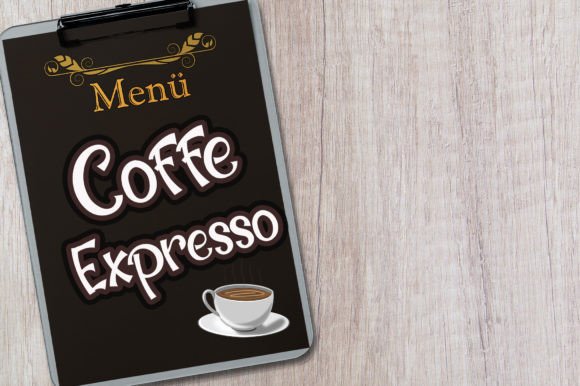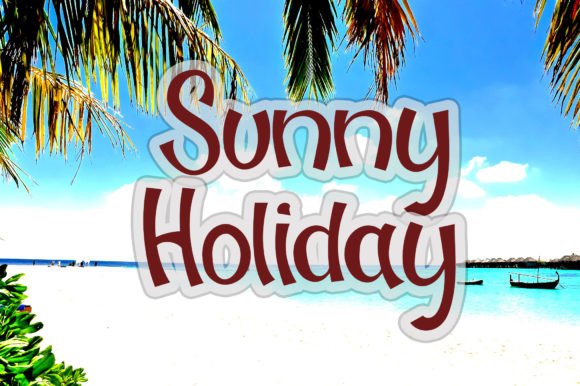
Create Line Font: Elevate Your Designs with Elegance and Precision
In the world of typography, a well-crafted font can make all the difference in elevating your designs to new heights. Introducing Create Line, a modern display typeface specifically designed for high-resolution displays and print media. With its sleek appearance and finely balanced proportions, Create Line is the perfect choice for headline text, corporate branding, and other designs where a touch of refinement is required.
Introducing Create Line Font
Create Line is a stunning display typeface that embodies the perfect blend of elegance and precision. Its modern design makes it an ideal choice for a wide range of applications, from luxury branding and advertising to digital media and print publications. The font’s sleek lines, subtle curves, and balanced proportions create a sophisticated look that is sure to captivate audiences.
Key Features of Create Line Font
• High-Resolution Displays: Create Line is optimized for high-resolution displays, ensuring crystal-clear rendering and precision.
• Print Media: The font’s finely balanced proportions make it perfect for print media, including brochures, posters, and business cards.
• Elegant Appearance: Create Line boasts an elegant appearance, making it suitable for luxury branding, high-end advertising, and corporate designs.
• Versatility: The font’s versatility allows it to be used in a wide range of applications, from digital media to print publications.
Create Line offers numerous benefits for designers and crafters, including:
• Enhanced Visual Identity: Create Line helps establish a strong visual identity for brands, making it perfect for corporate branding and advertising.
• Improved Readability: The font’s clear and balanced design ensures excellent readability, even at small sizes.
• Increased Creativity: Create Line’s unique and elegant appearance inspires creativity, allowing designers to push the boundaries of their designs.
• Time-Saving: The font’s versatility and wide range of applications save designers time and effort, as they can use it across multiple projects.
Tips for Using Create Line Font
To get the most out of Create Line, consider the following tips:
• Pair with Neutral Fonts: Pair Create Line with neutral fonts to create visual contrast and emphasize key messages.
• Experiment with Colors: Take advantage of Create Line’s versatility by experimenting with different colors and textures.
• Use for Headlines: Use Create Line for headlines and titles to create a lasting impression and draw attention.
Font Name Create Line Font
Author Ailil Design Studio
Create Line is a game-changing font that offers designers and crafters a unique opportunity to elevate their designs with elegance and precision. Its modern design, finely balanced proportions, and versatility make it an ideal choice for a wide range of applications. Whether you’re working on a luxury branding project, creating digital content, or designing print media, Create Line is the perfect choice for adding a touch of refinement to your work.
With its numerous benefits, including enhanced visual identity, improved readability, and increased creativity, Create Line is set to become a go-to font for designers and crafters worldwide. So why wait? Discover the power of Create Line and take your designs to new heights.